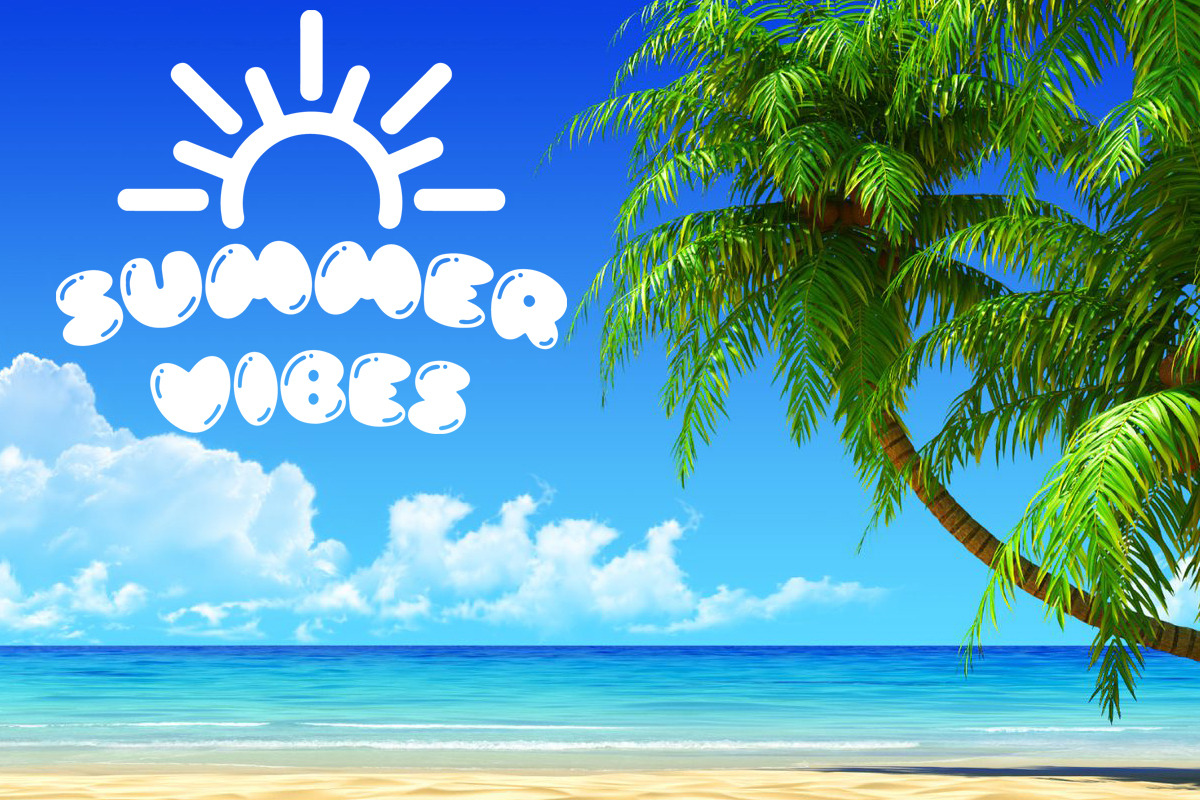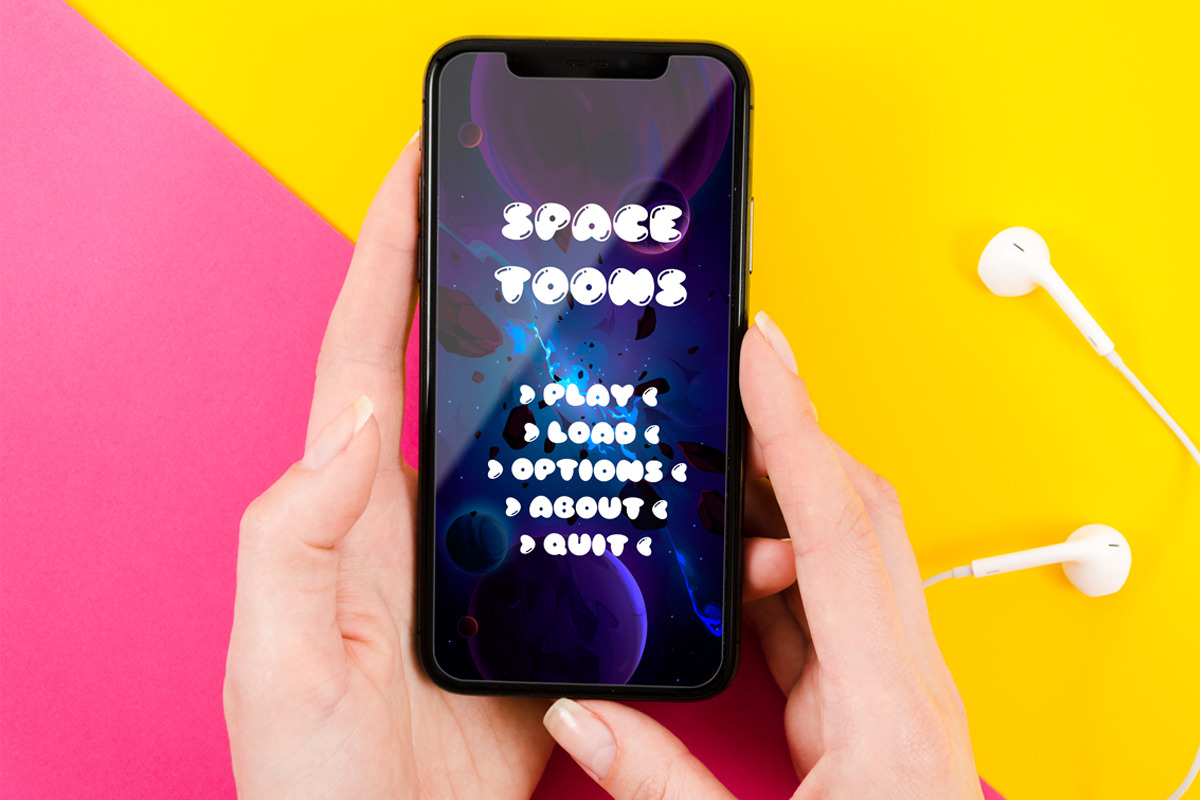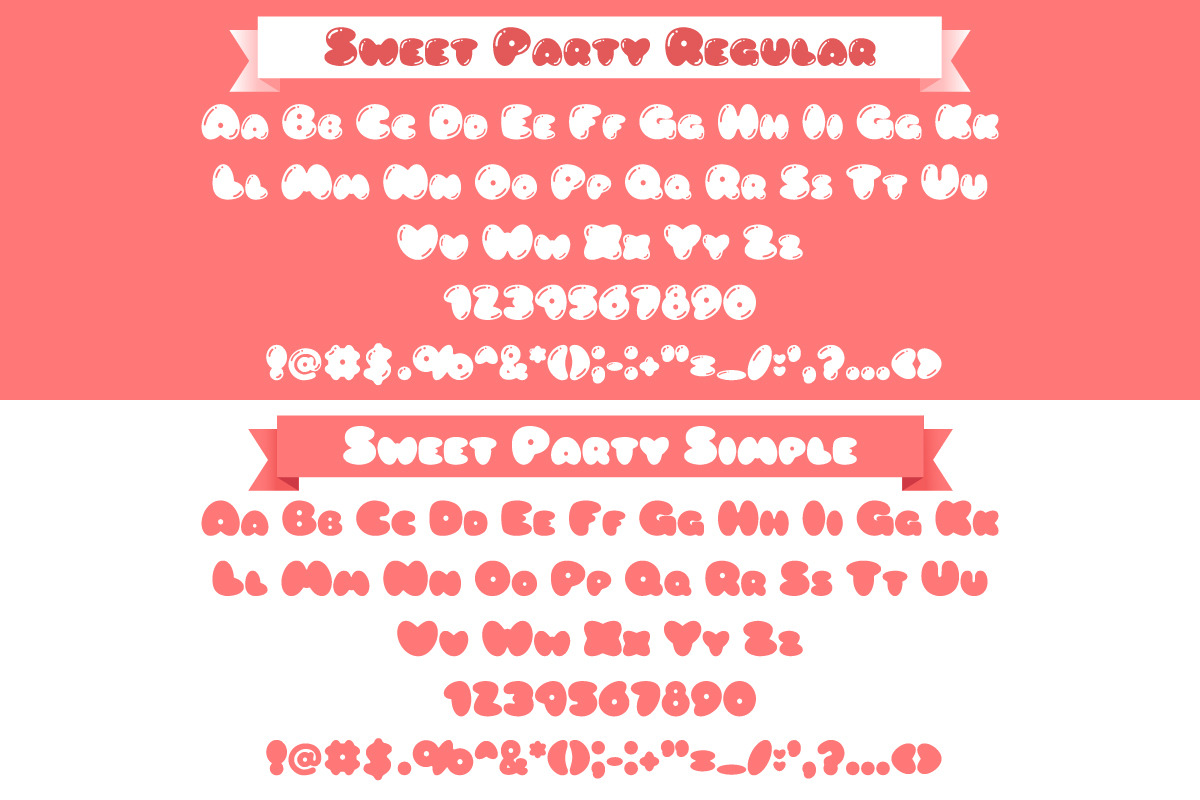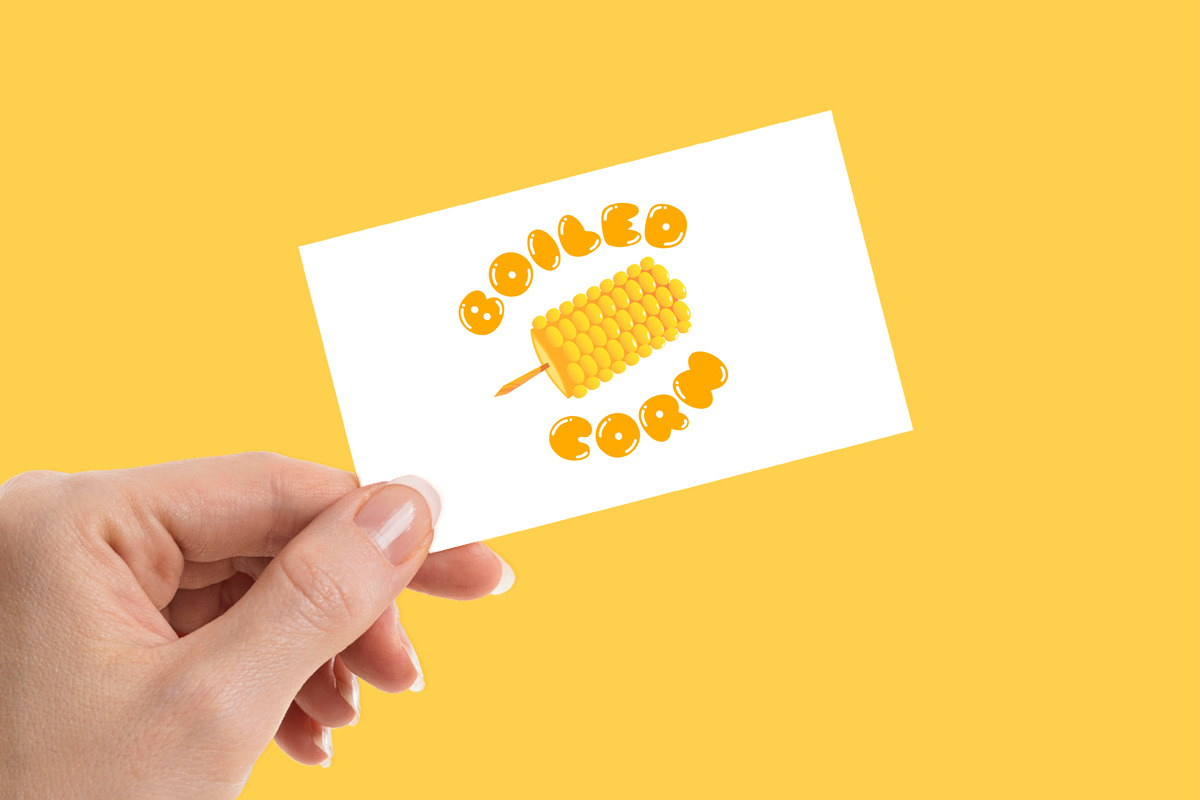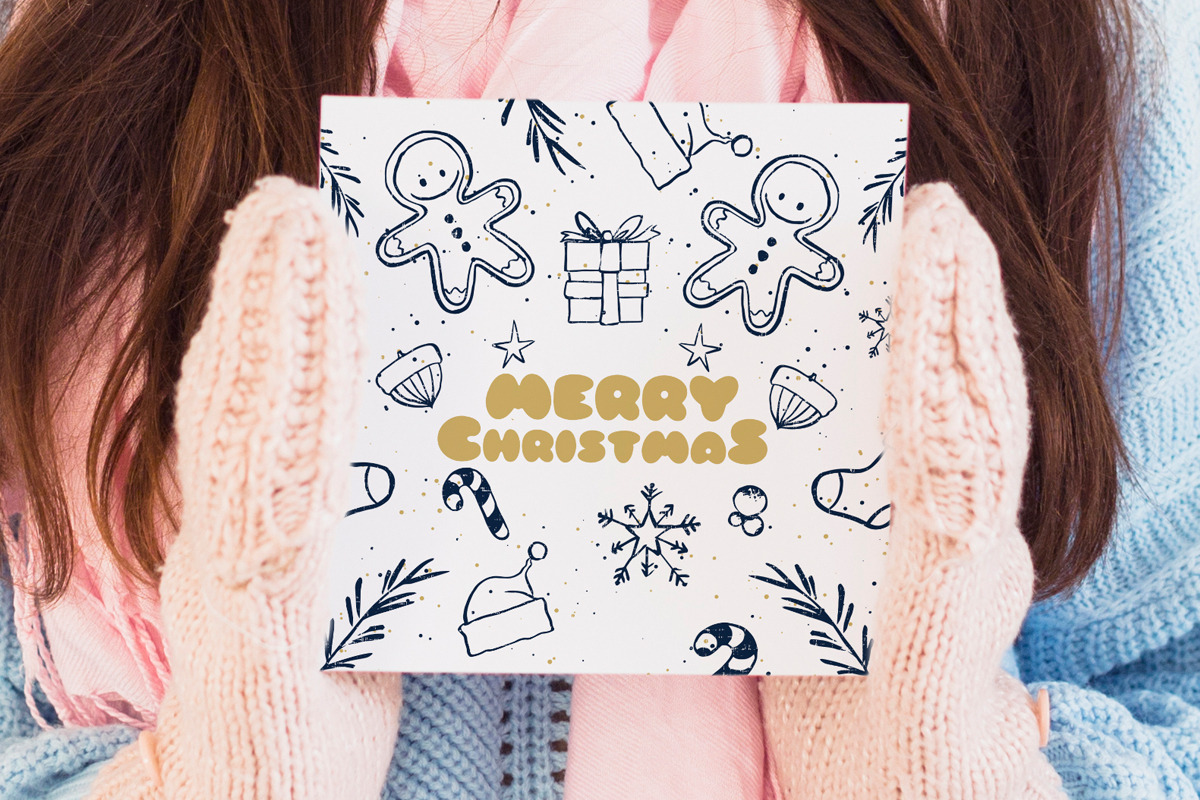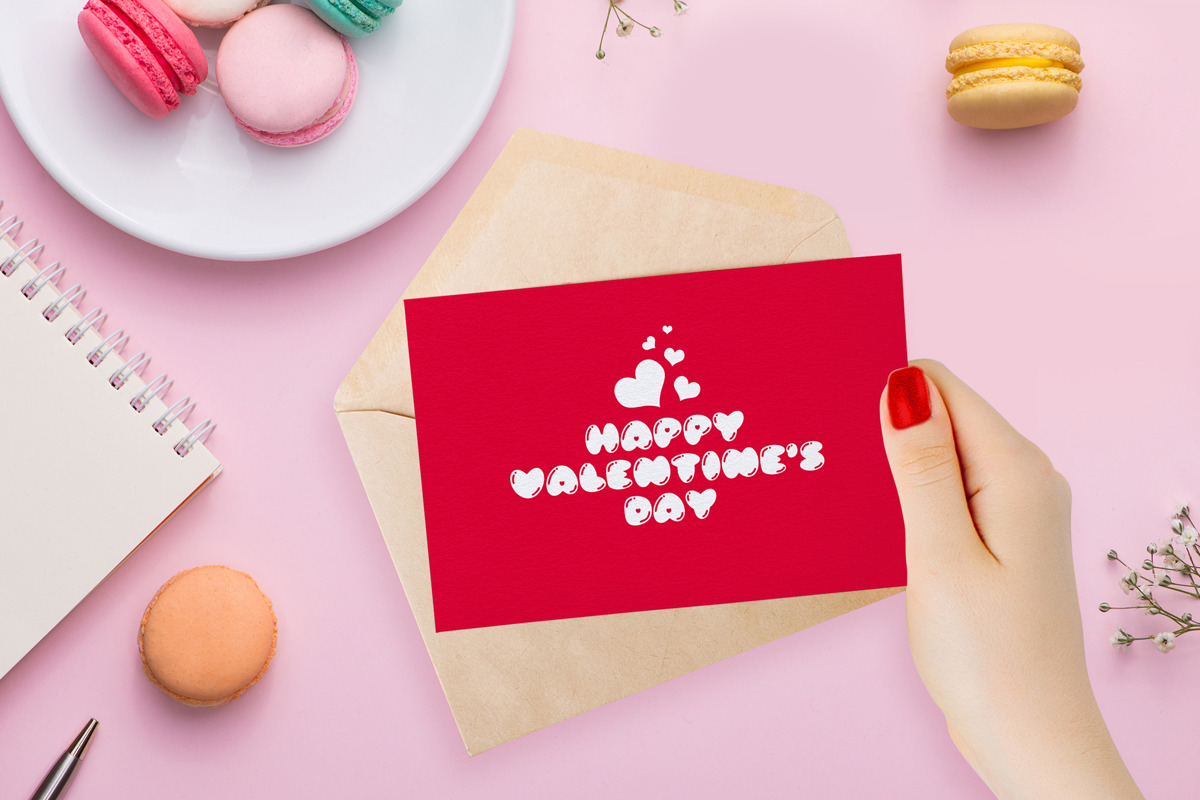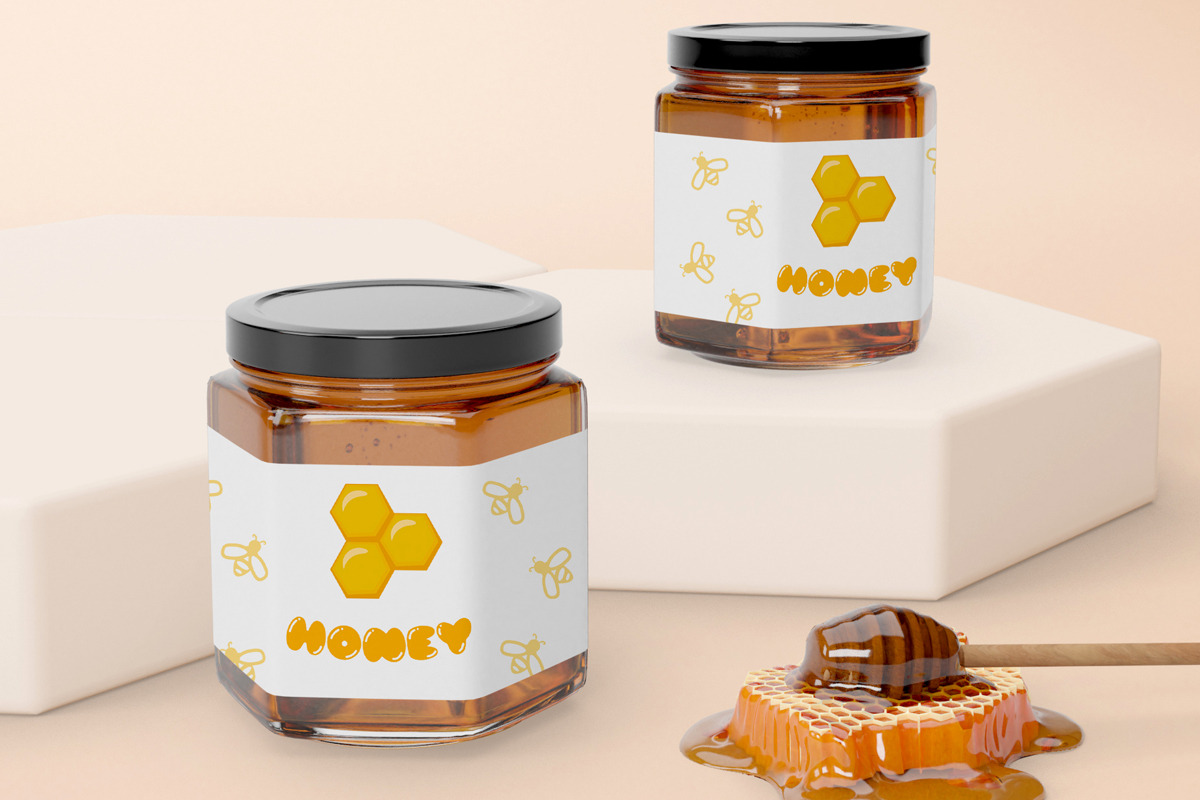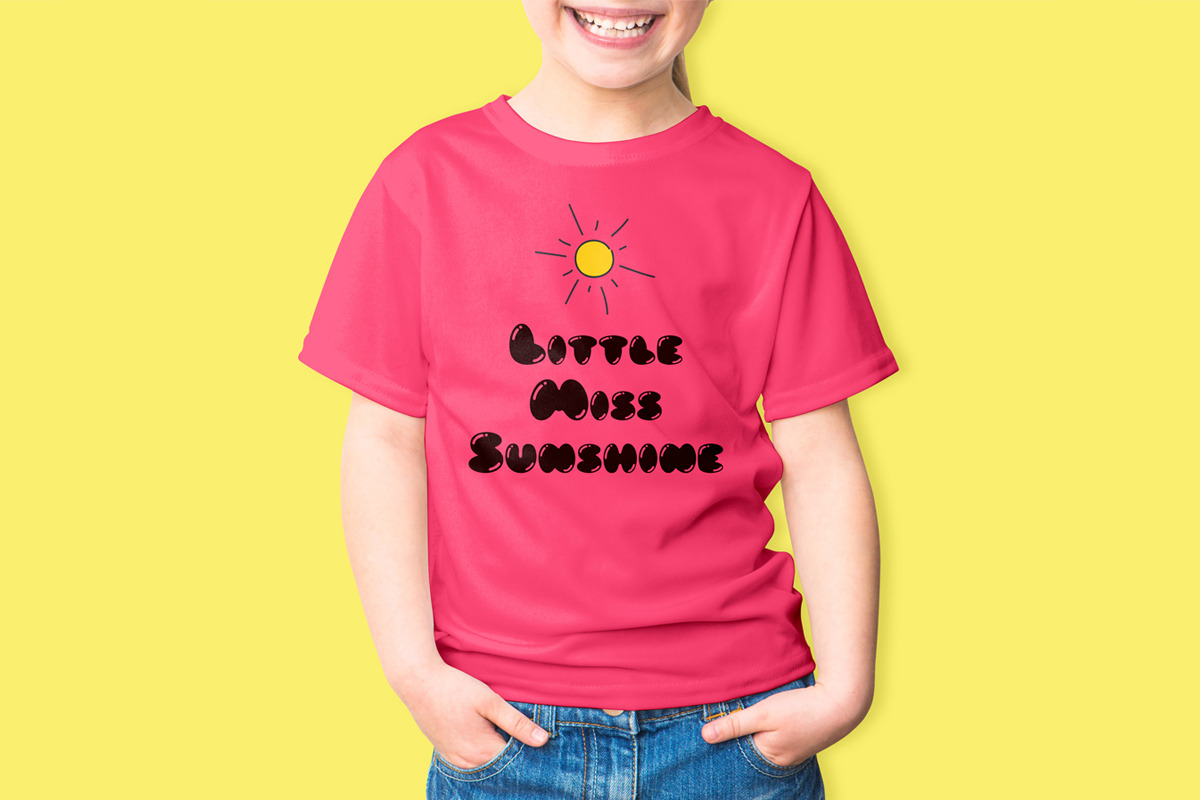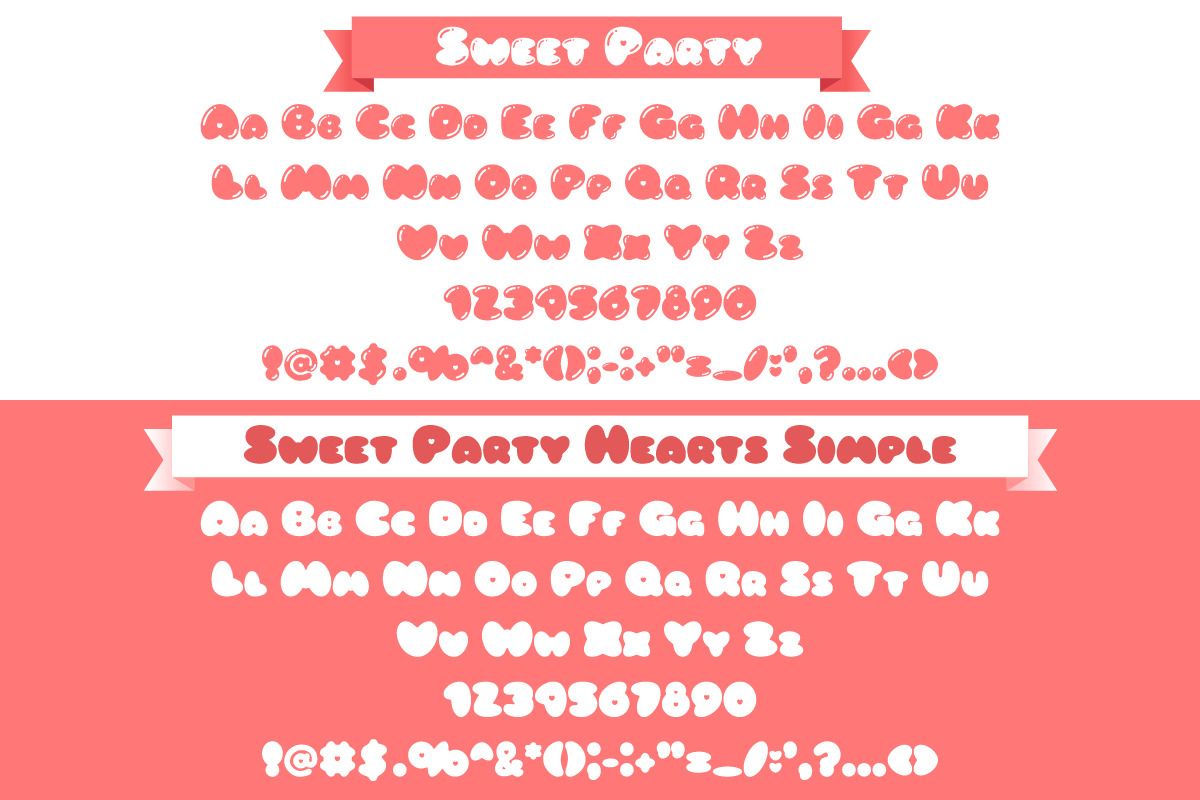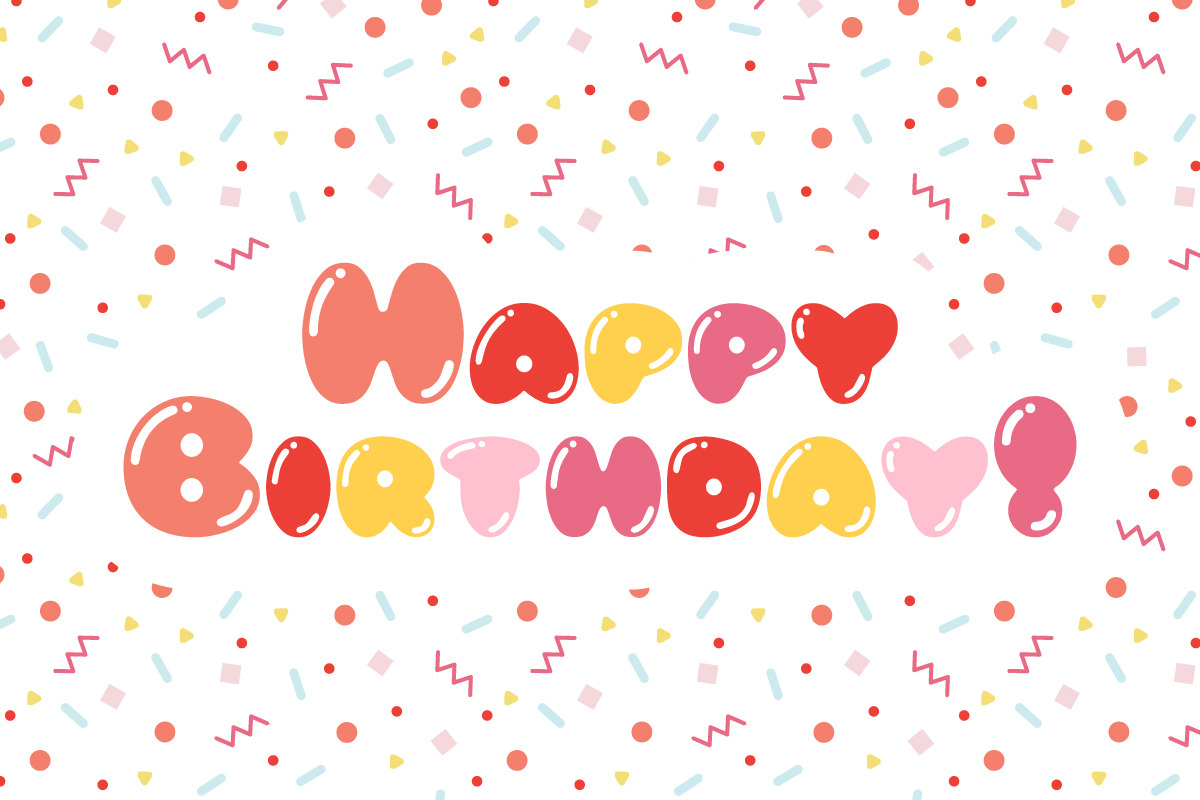
Sweet Party Font
Sweet Party Font in 4 styles is a cute and bold handwritten font by @elysarto. Great for a fun and festive mood! The font will be awesome for many industries including : fashion, kids, school and many more!